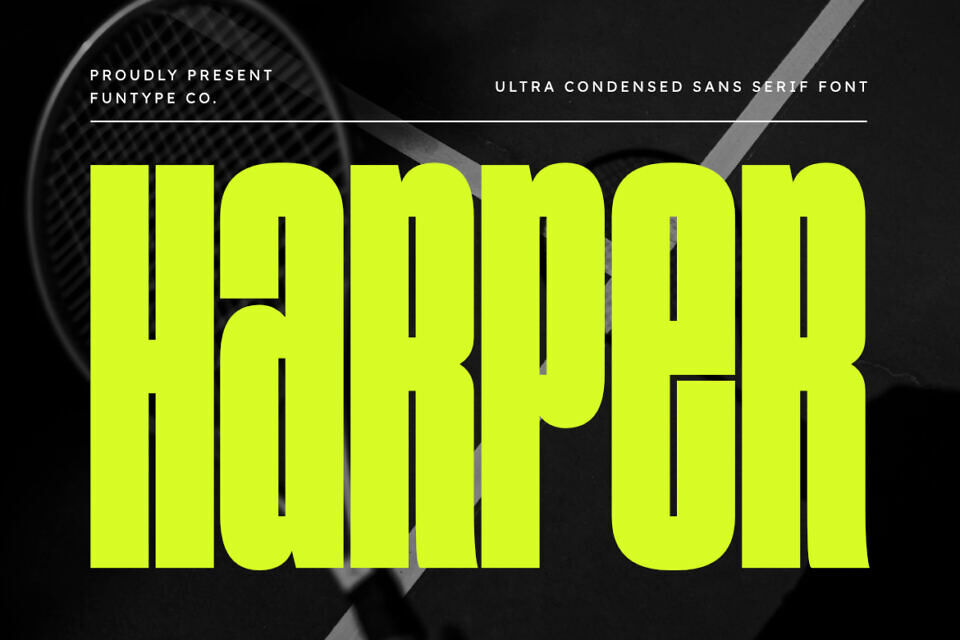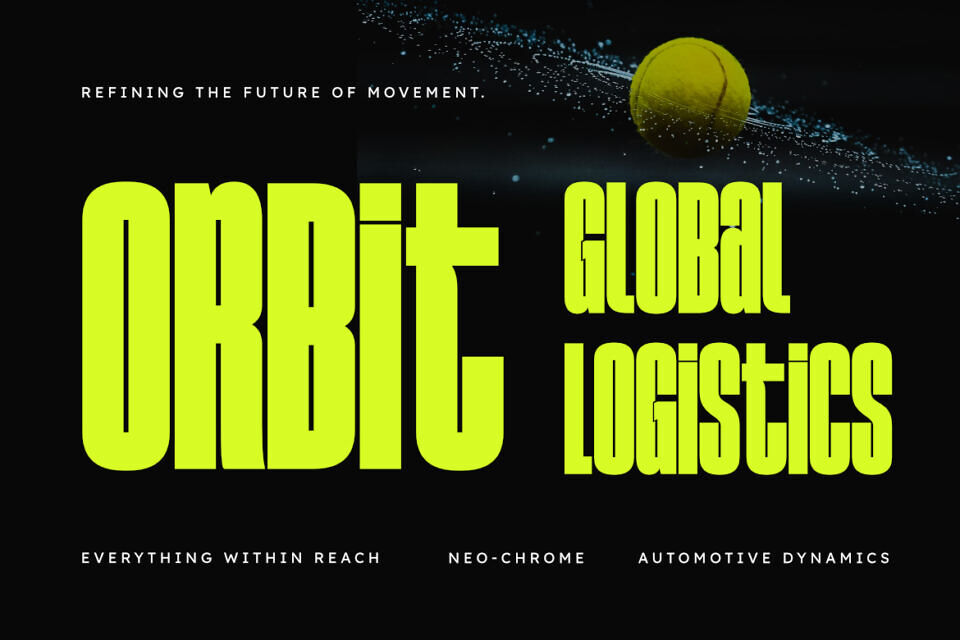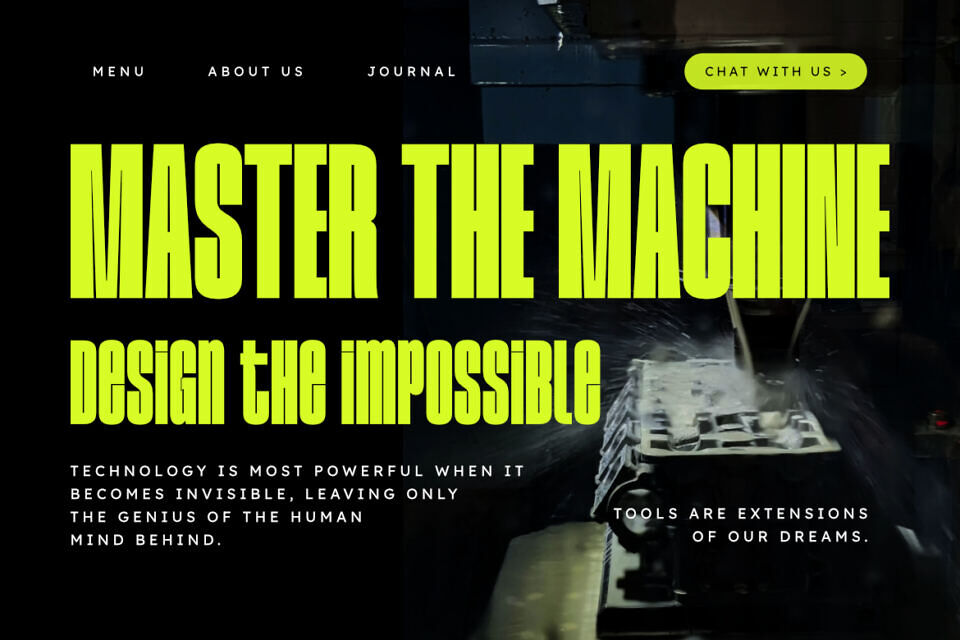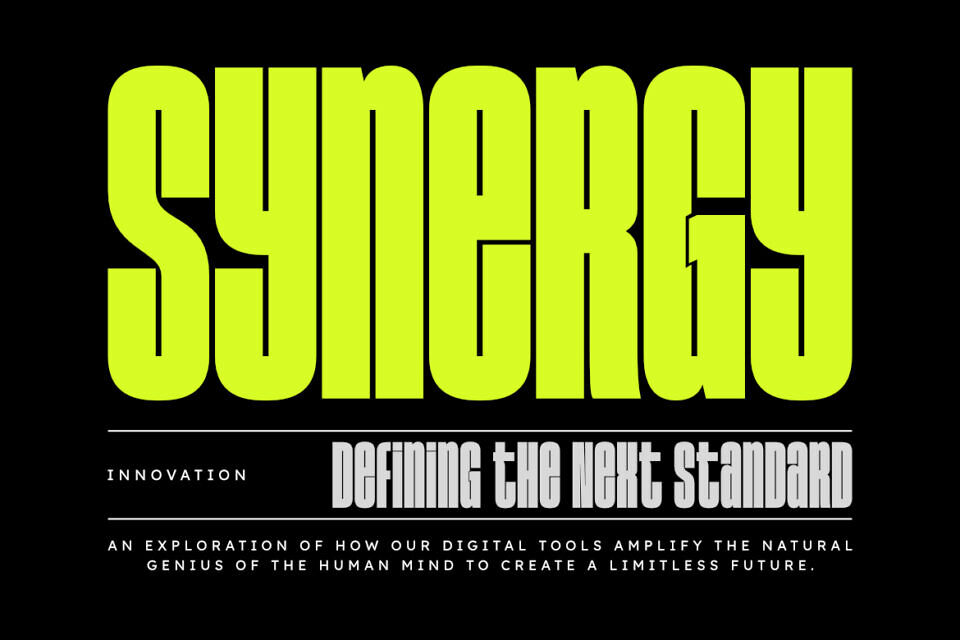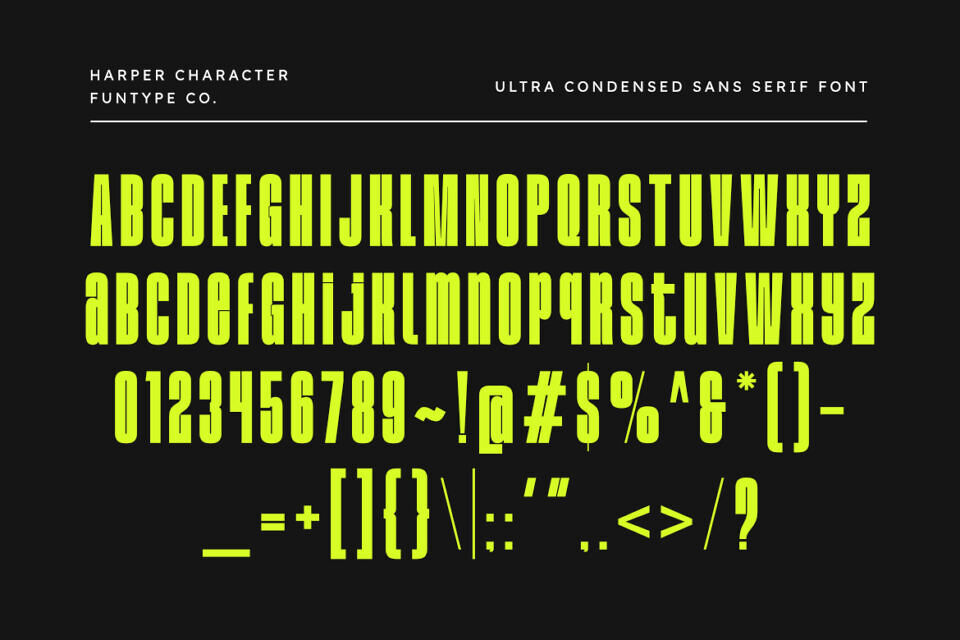
Harper Font
Harper is a sophisticated and powerful ultra-condensed sans serif font, thoughtfully designed to capture the essence of high-impact modern storytelling and industrial strength. With its exceptionally tall, narrow structure and clean geometric lines, Harper offers a professional aesthetic that brings a touch of commanding elegance to any creative project.
This font is the ideal choice for designers looking to add a professional yet bold touch to their work. Whether you are crafting a striking movie poster, a sleek technology logo, or high-density editorial layouts, Harper provides a seamless blend of contemporary flair and timeless authority.